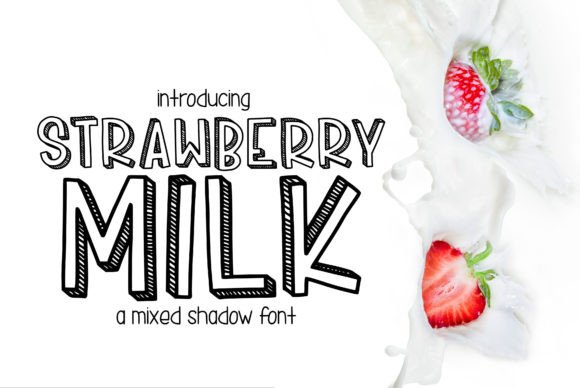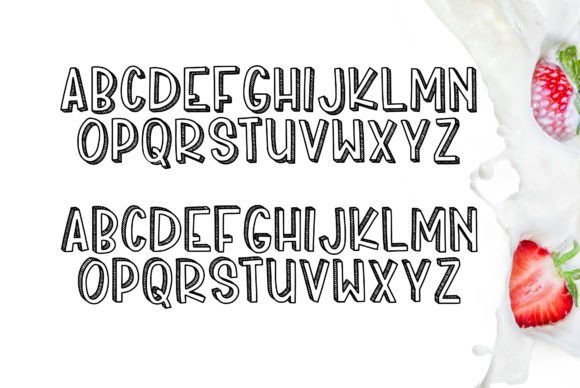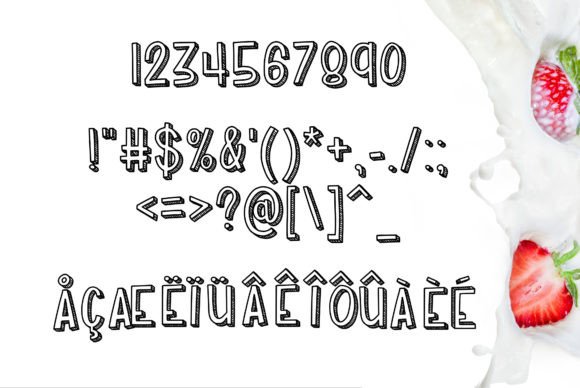
Strawberry Milk Font: A Playful Handwritten Font for Cute DIY Crafts
About the Strawberry Milk Font
Presenting Strawberry Milk Font, a unique and stylish typeface that will make your work stand out. Strawberry Milk is a delightful mixed shadow font that adds a fun, playful twist to any design. With its bold lines and unique shadow accents, this hand-drawn font is perfect for projects needing a touch of whimsical charm. Great for posters, children’s books, packaging, and branding, Strawberry Milk brings an eye-catching and friendly feel. Its versatility and character make it a go-to for adding a creative spark to your designs.
Strawberry Milk Font Usage Examples
Strawberry Milk Font Example